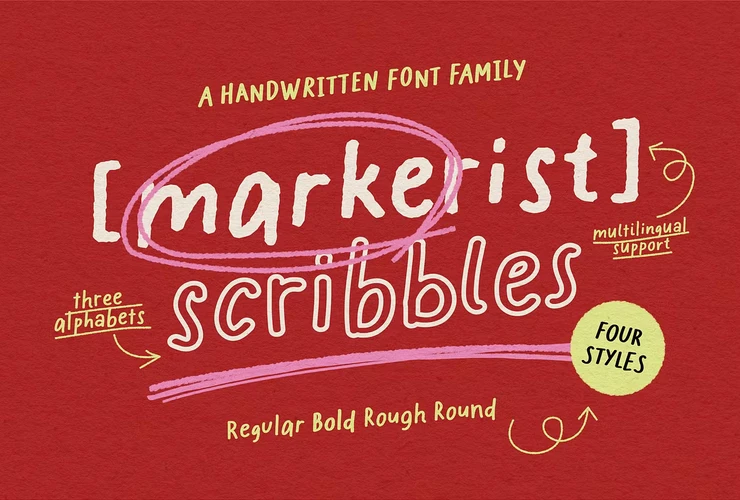
Elevate Your Designs with the MARKERIST Handwritten Font Family
The MARKERIST Handwritten Font Family is a versatile and expressive typeface that brings a personal, handcrafted touch to your projects. Designed with the authentic feel of marker strokes, this font family offers four unique styles—Regular, Bold, Rough, and Round—making it a perfect choice for a wide range of design needs.
Why Choose MARKERIST?
MARKERIST stands out in the crowded world of fonts with its genuine, handmade aesthetic. Whether you’re working on branding, invitations, social media graphics, or any creative project that requires a personal touch, MARKERIST delivers. Its marker-style handwriting adds warmth and character to your text, making it resonate with authenticity and creativity.
Here’s why MARKERIST is an essential addition to your font collection:
Handcrafted Style: Each letter, number, and symbol is meticulously crafted to mimic the natural strokes of a marker, giving your designs a realistic, handwritten look.
Four Versatile Styles: The family includes Regular, Bold, Rough, and Round styles, offering flexibility and variety in your designs.
Opentype Features: With 3 versions for each letter and 2 versions for each number, the font’s Opentype contextual alternates feature adds even more realism to your text by varying characters to avoid repetition.
Comprehensive Multilingual Support: MARKERIST supports a wide range of languages, making it accessible for global projects.
Ideal Applications
MARKERIST is perfect for any project that requires a personal, handwritten feel. Its versatility makes it suitable for:
Branding and Logos: Add a unique and personal touch to your brand identity.
Invitations and Greeting Cards: Perfect for creating heartfelt and memorable invitations and cards.
Social Media Graphics: Make your posts stand out with a distinctive handwritten style.
Product Packaging: Enhance your packaging with a font that conveys authenticity and warmth.
Supported Languages
MARKERIST offers extensive multilingual support, accommodating over 70 languages, including Afrikaans, French, German, Spanish, Vietnamese, and Zulu. This wide-ranging support ensures that no matter where your audience is, your message will be conveyed clearly and beautifully.
Explore the full potential of MARKERIST Handwritten Font Family and see how this versatile typeface can elevate your creative projects with its unique, handcrafted charm.